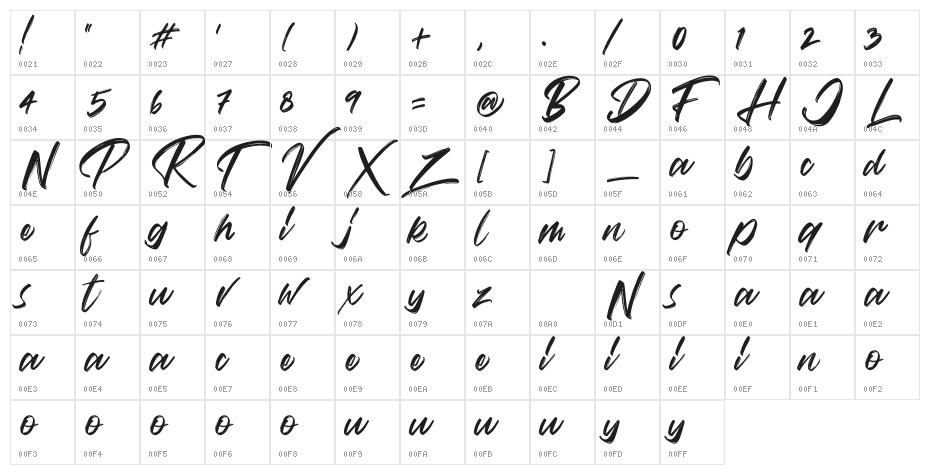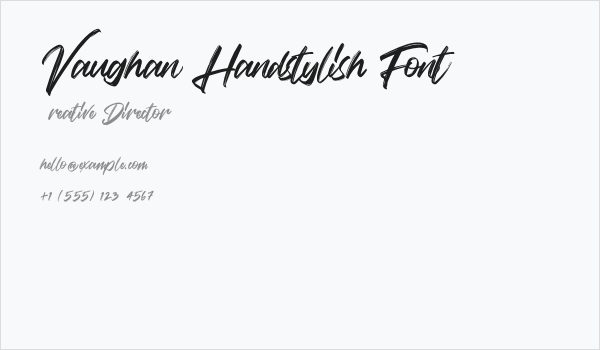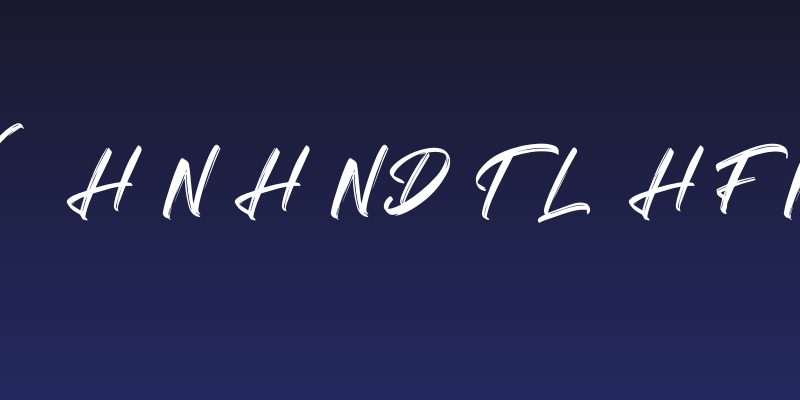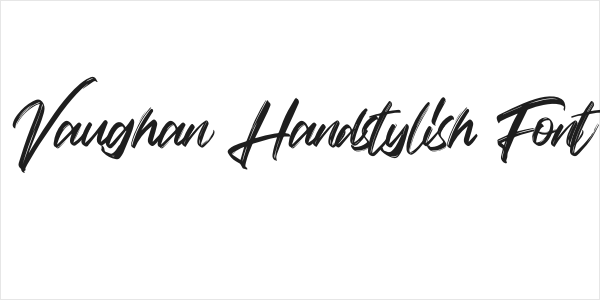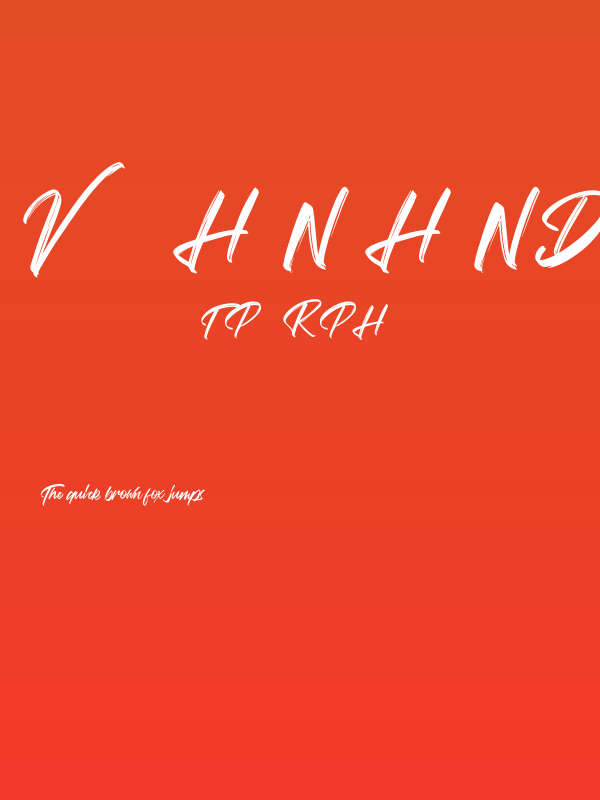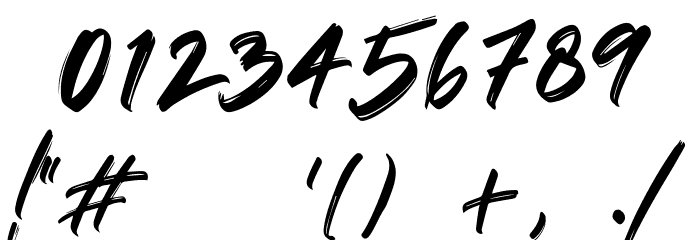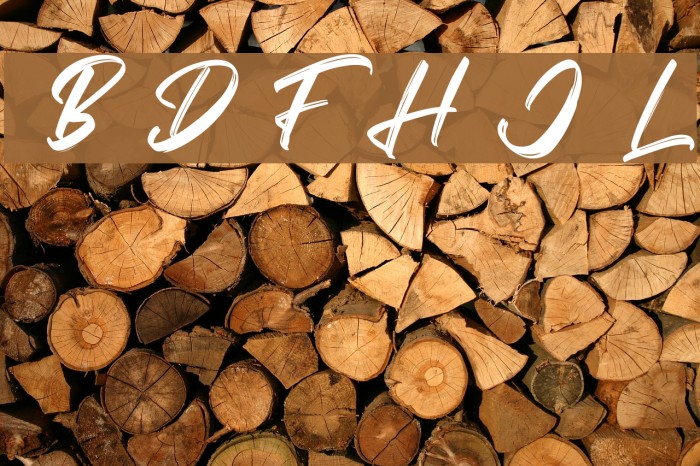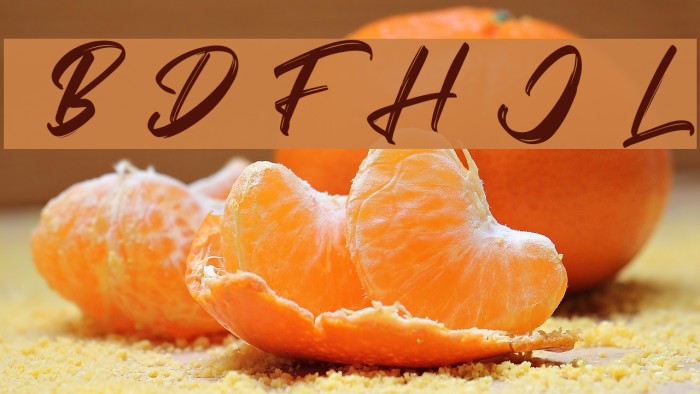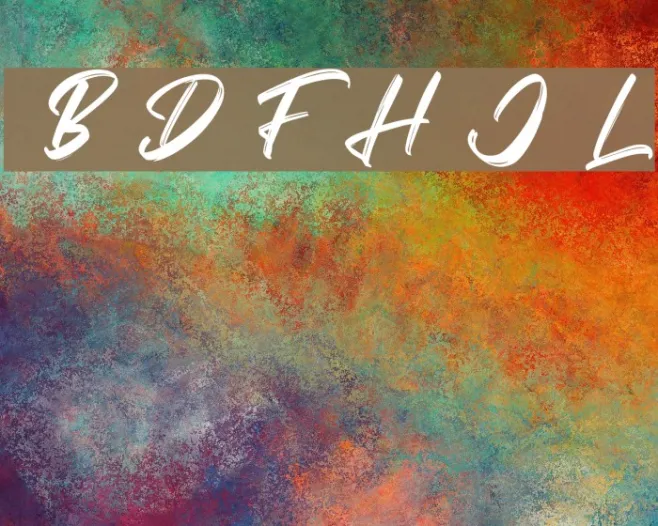
Vaughan Handstylish Font Font
Vaughan Handstylish Font Description
This font exudes a dynamic and expressive handwritten style, characterized by its bold and fluid strokes. The letters are crafted with a sense of movement and energy, giving it a lively and personal touch. Each character is distinct, with varying thicknesses that add to its artistic flair. The uppercase letters are prominent and commanding, while the lowercase letters maintain a consistent flow. The numerals and special characters complement the overall style, making it versatile for creative designs. Its brush-like appearance suggests a casual yet sophisticated aesthetic, perfect for projects that require a personal and artistic touch.